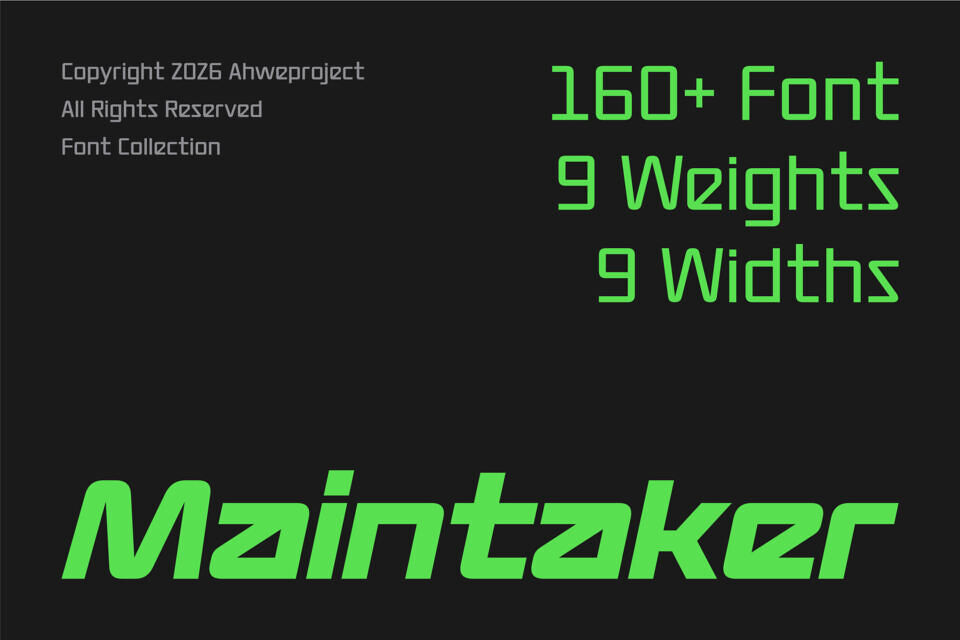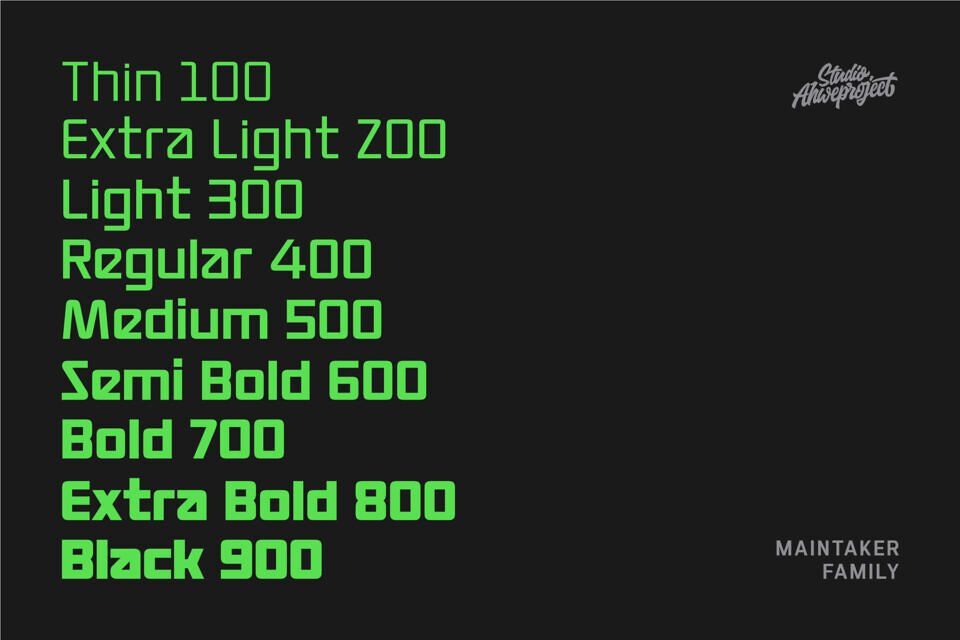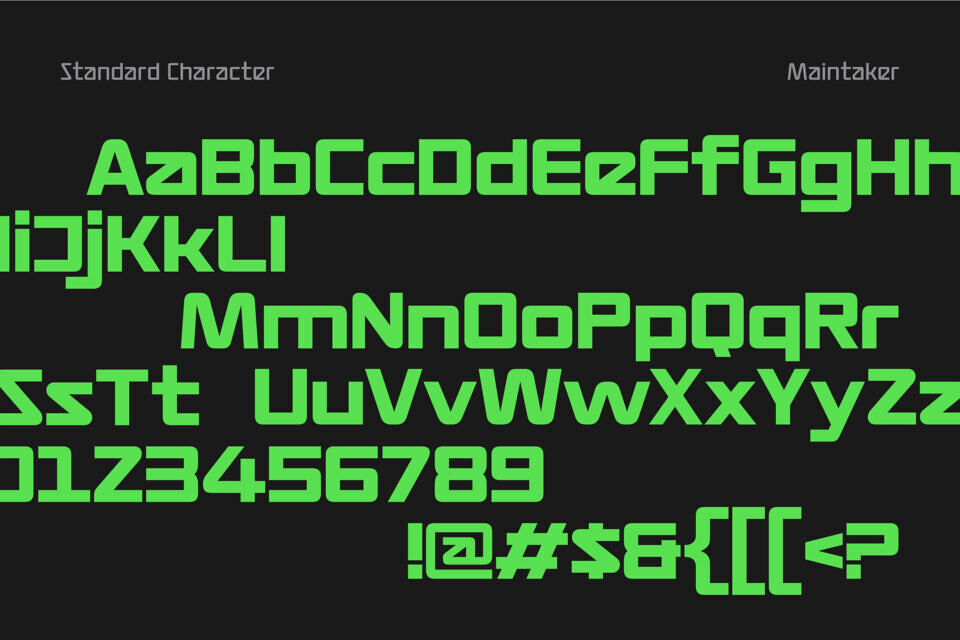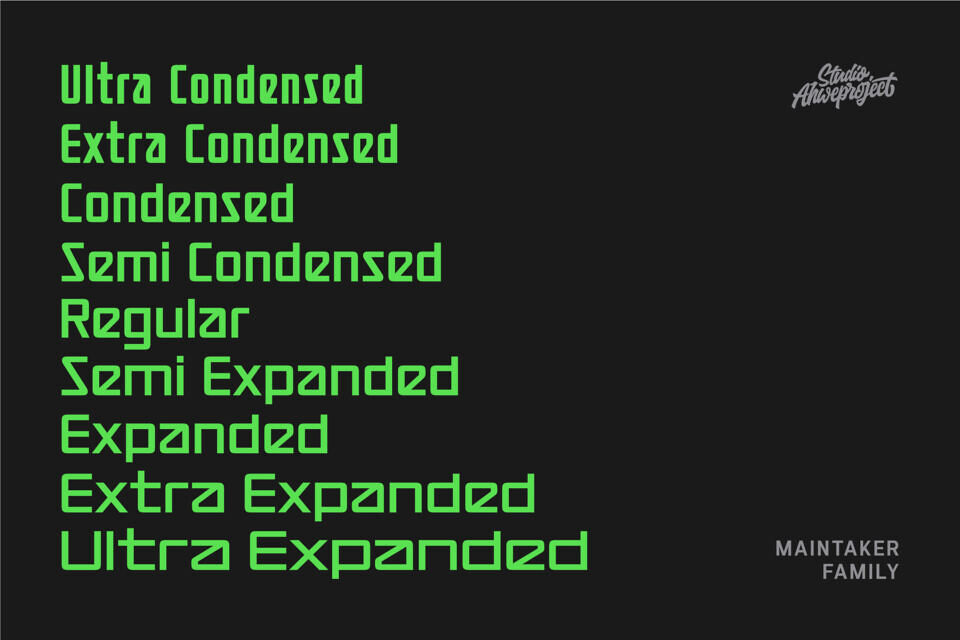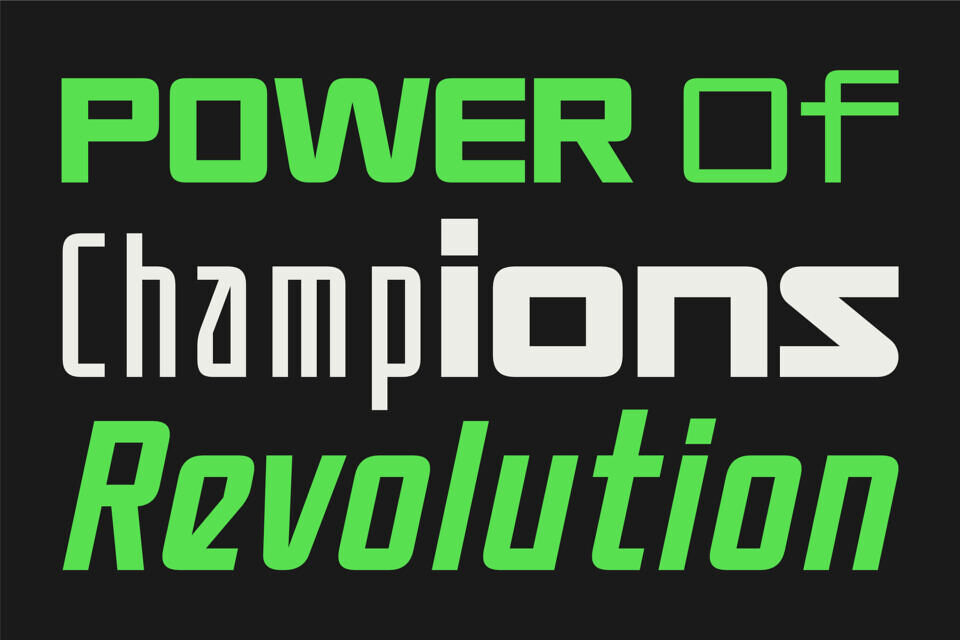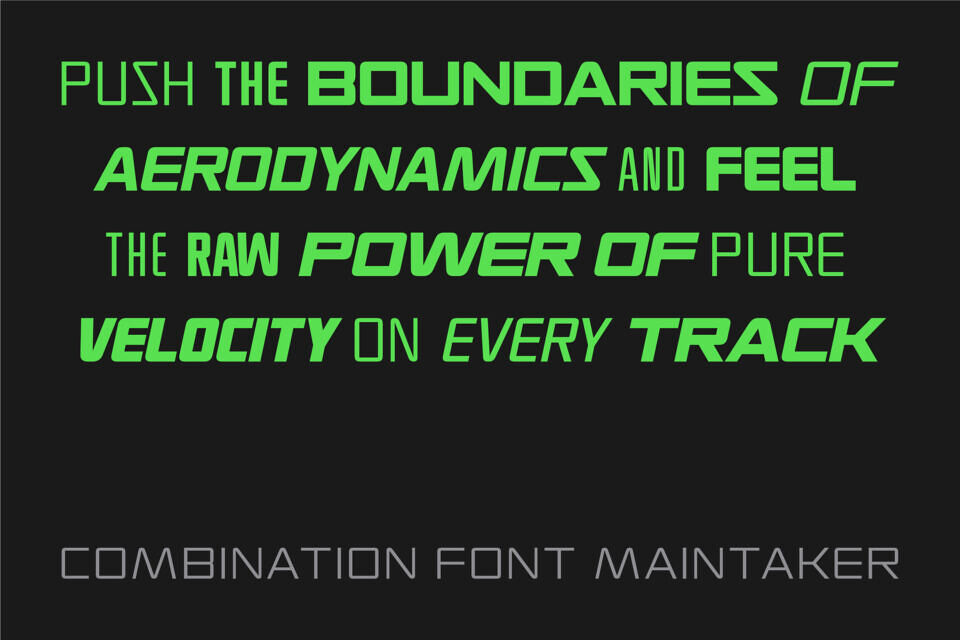
Maintaker Font Family
Take your design to the next level with Maintaker, a powerful futuristic font family built for creators who want bold, modern, and high-impact visuals. With 160+ styles, including 9 weights and 9 widths, Maintaker gives you full control to craft anything from sleek minimal layouts to aggressive, tech-inspired branding.
This font family features a sleek, geometric design with a bold personality, making it ideal for various applications, including tech and gaming, automotive branding, sports and streetwear visuals, modern logos, and digital products like UI/UX designs.